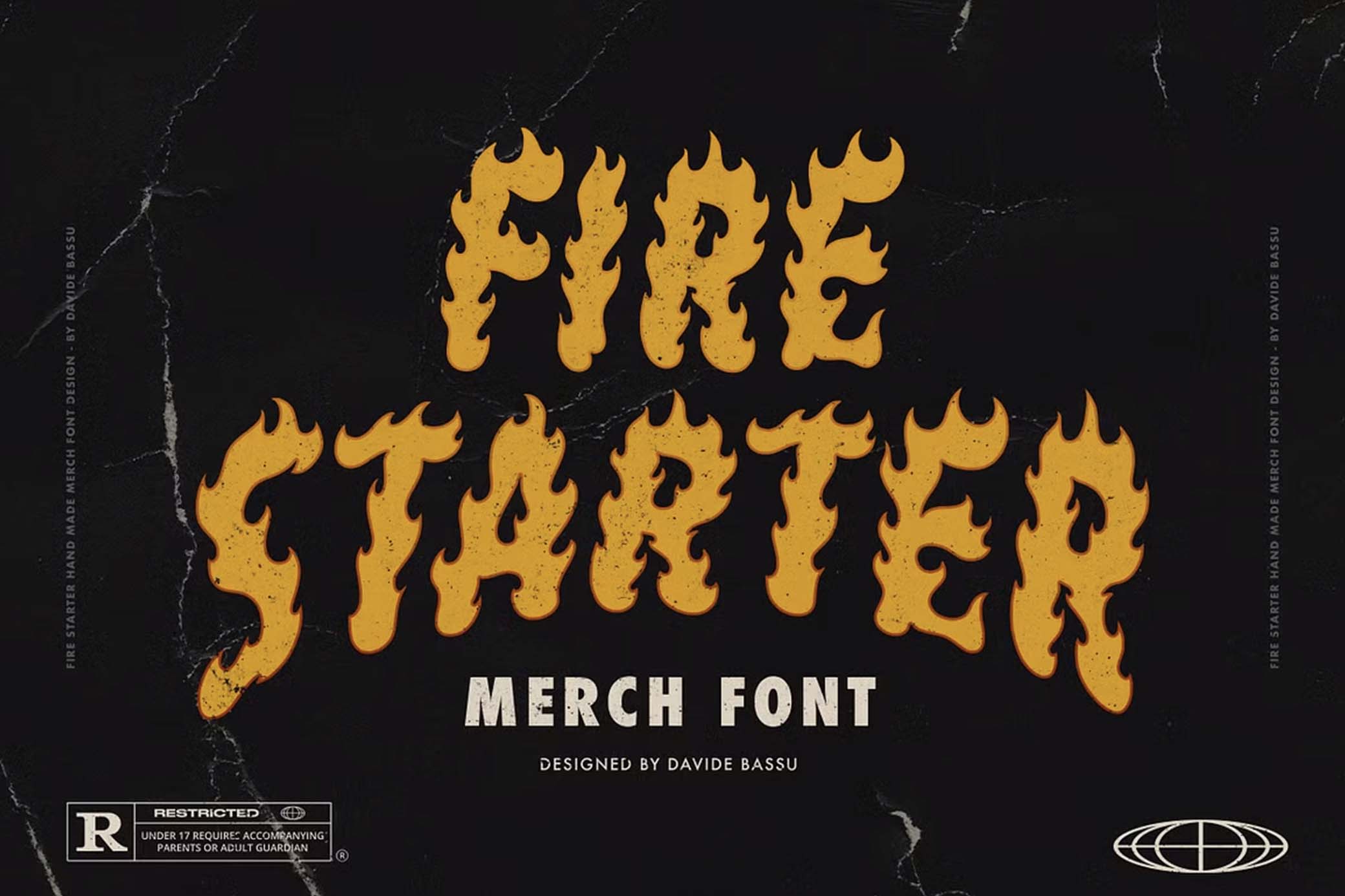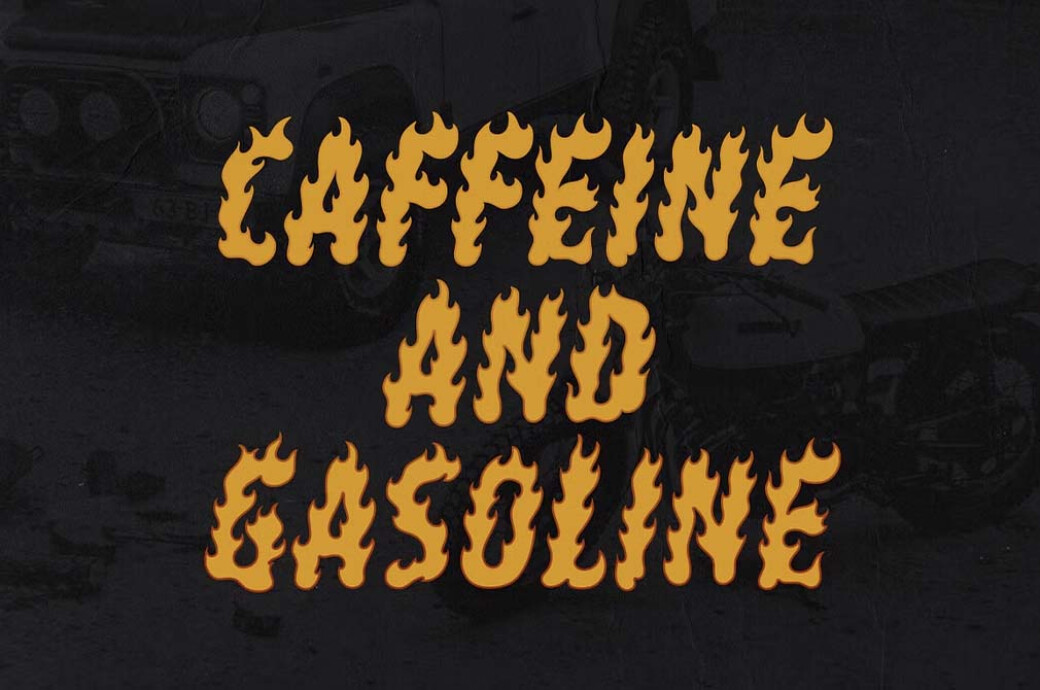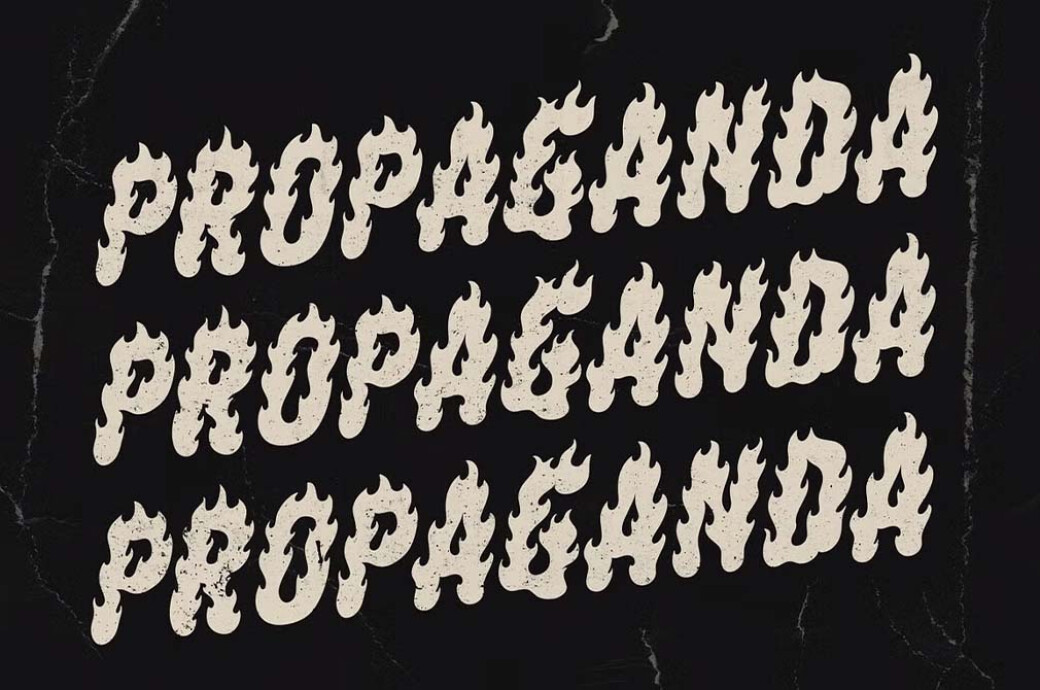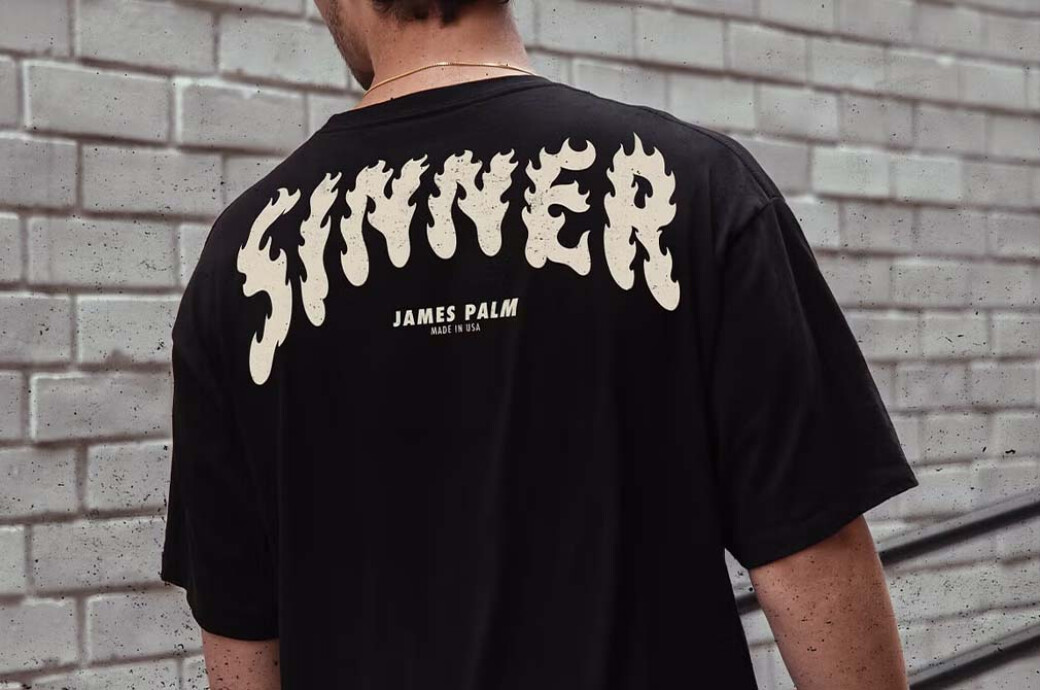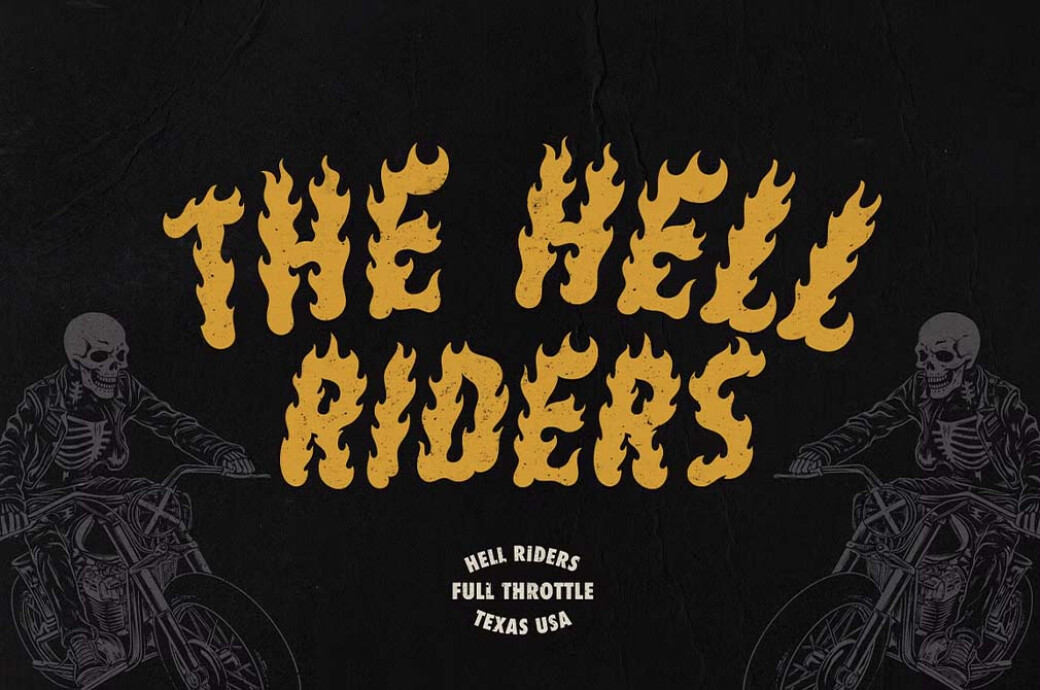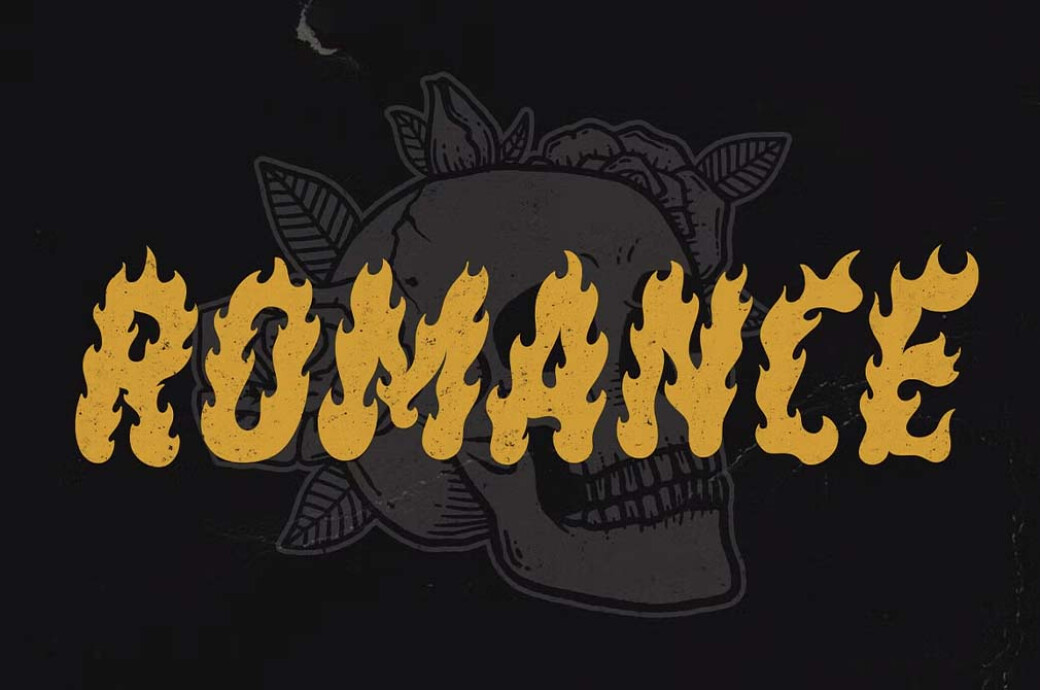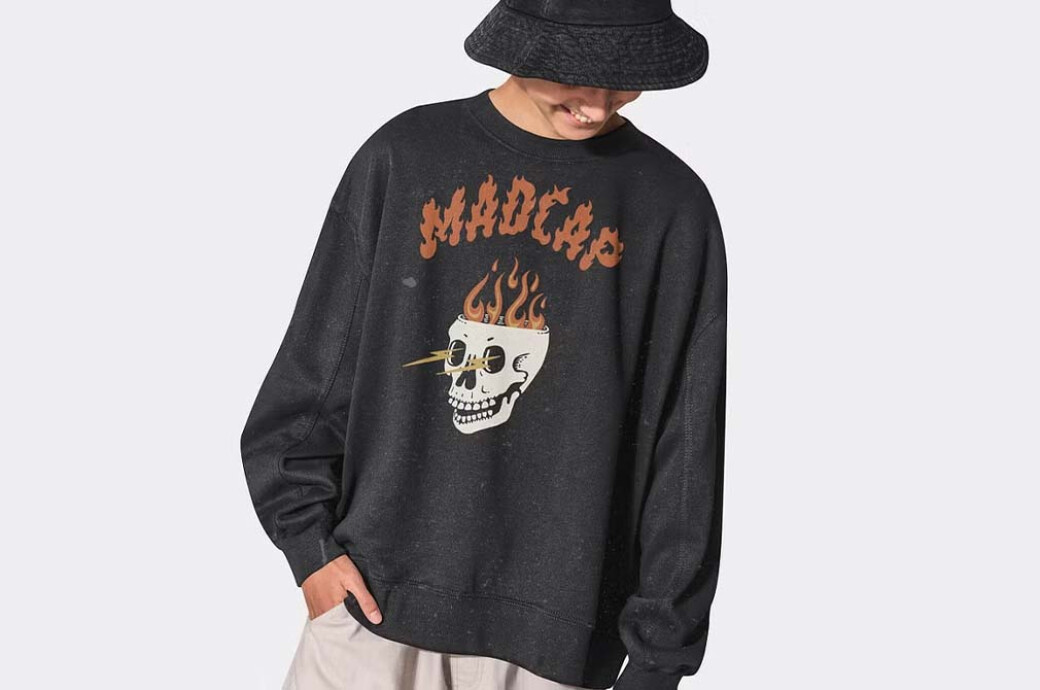
Fire Starter Merch Font
There’s something cool about biking — the sense of air pushing you while cutting through the surroundings. Beyond the road, the rest of the world seems to blur, and the speed becomes as dangerous as fire. The same fearless vibe is laid in this font.
Indeed, the Fire Starter is a natural-born rebel — sharp tongues of inflamedletters give an impression of sought-after risk. Yep, it looks free-spirited to the point you can’t tame it, from fierce logos on leather jackets to bike helmets. The font is versatile: it has uppercase characters**,** symbols, numerals, and punctuation. So be the wanderer that seeks adventures by making your clients soak in the thirst for speed.